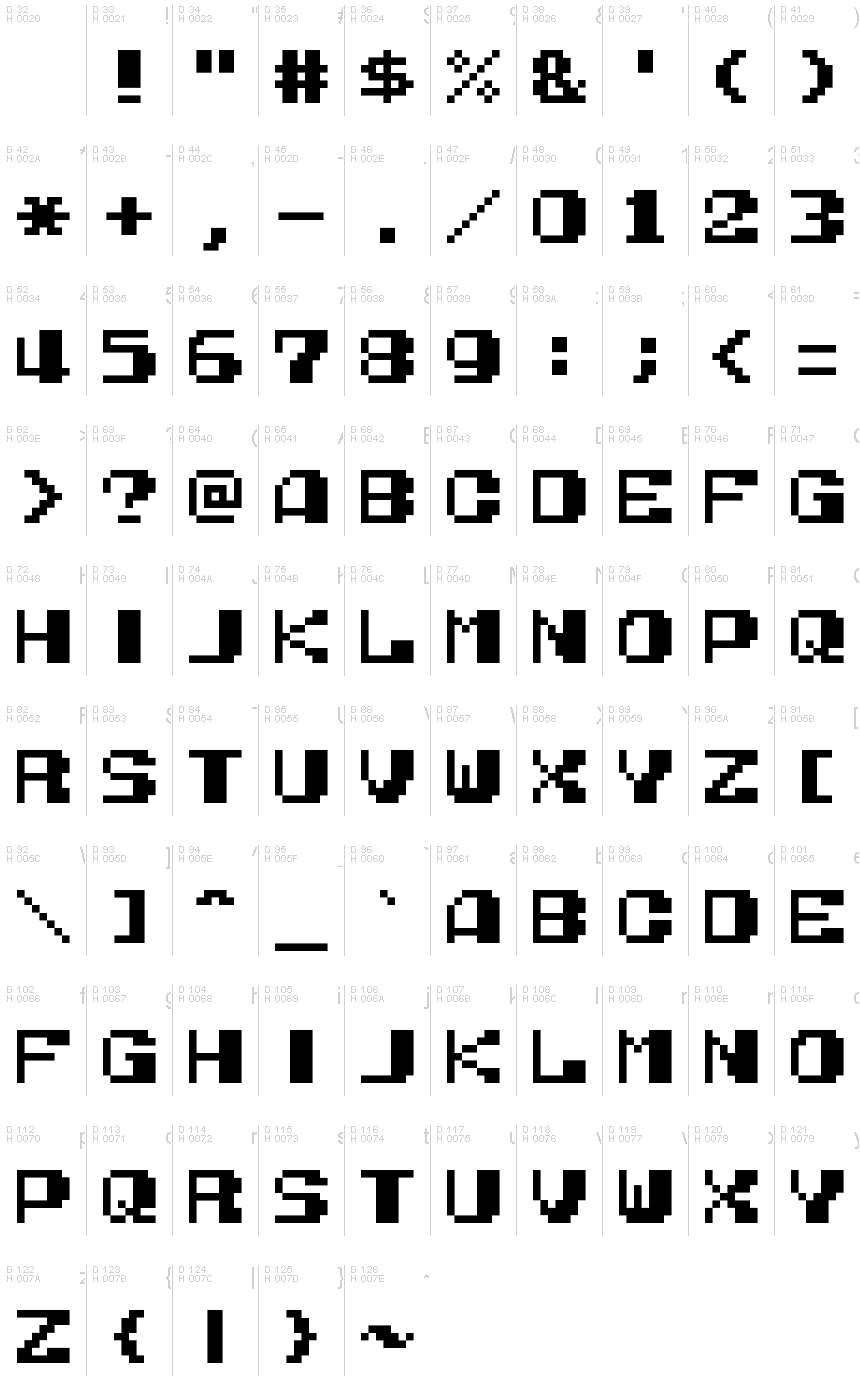
NES Open Tournament Golf Regular
Get ready to tee off with the NES Open Tournament Golf font! Designed by TheWolfBunny, this extra-bold bitmap typeface is perfect for creating retro video game-inspired designs. With its pixelated style and extra-expanded width, it's ideal for projects that celebrate the 8-bit era of gaming. Use it for posters promoting a retro gaming tournament or for creating graphics and logos for gaming websites or blogs. The NES Open Tournament Golf font is sure to add a fun and playful feel to any project that needs an extra-bold boost of nostalgia!
Hole-in-one! This font is based on the primary text as seen in NES Open Tournament Golf on the NES, complete with unicodes, and characters for Latin, Greek, and Cyrillic!
“Super Mario Bros. NES, which is based on “Arcade Classic, which is based on “KonaM” by “igorcbarros” (https://fontstruct.com/fontstructors/show/972420/igorcbarros)
Designer description: An unbelievable hole-in-one! A font based on NES Open Tournament Golf is now available to use!